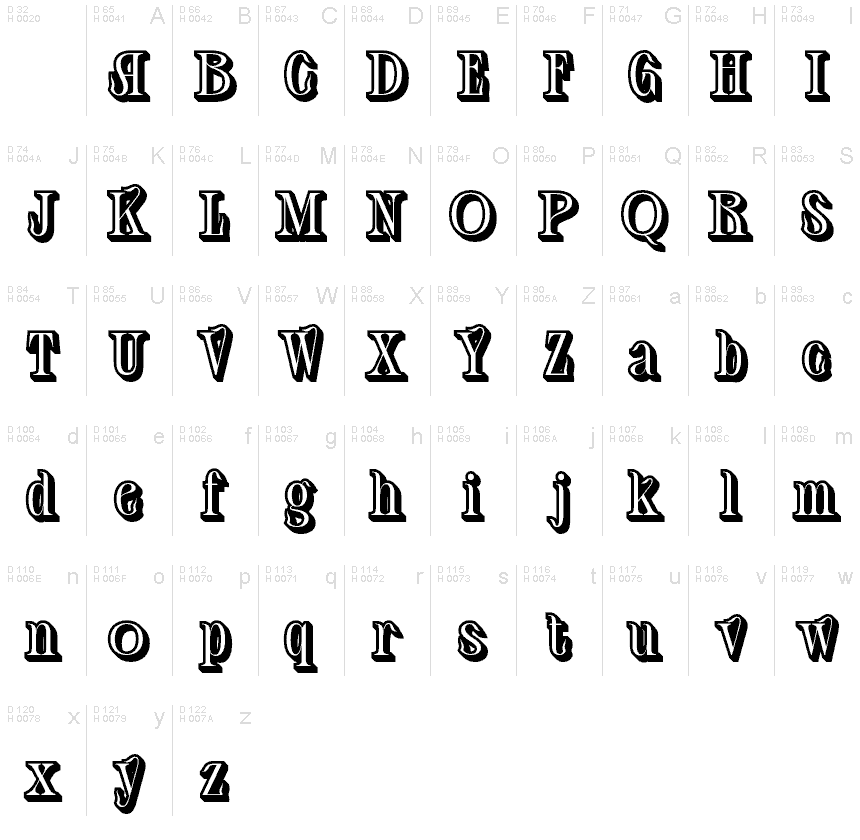
Ceyla-ExtrudeRight Demo
Ceyla ExtrudeRight font by Craft Supply Co. is a vintage serif 3D display typeface with condensed letters. Unlike most fonts, it showcases an unusual 3D effect directed to the right which results in an embossed classic appearance with shadowed edges. Borrowing aesthetics from retro design, this font has a decorative character but still maintains its balance and keeps visual harmony intact.